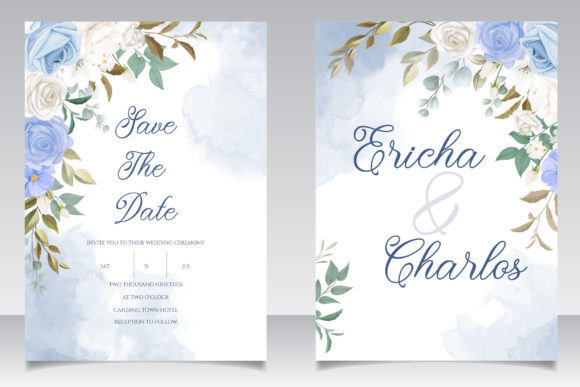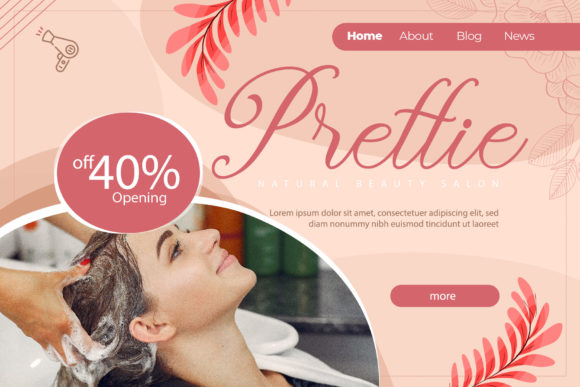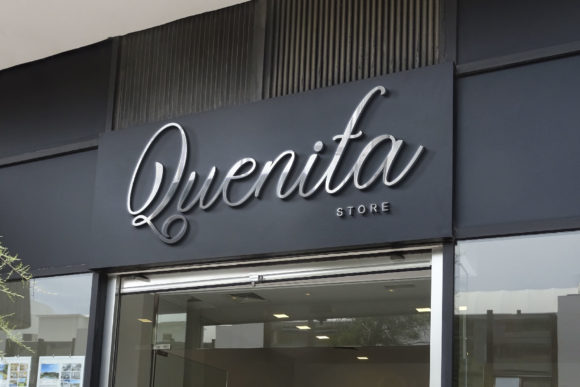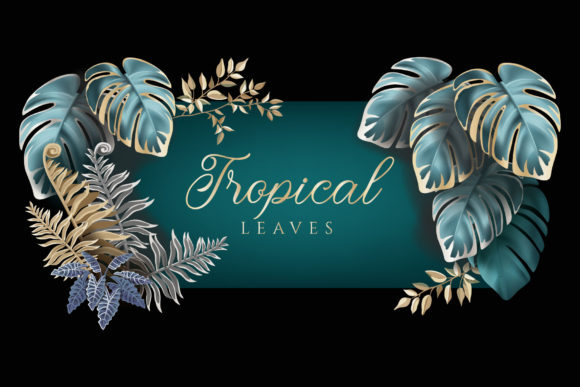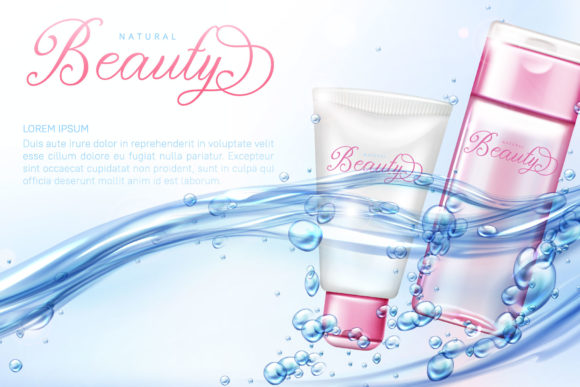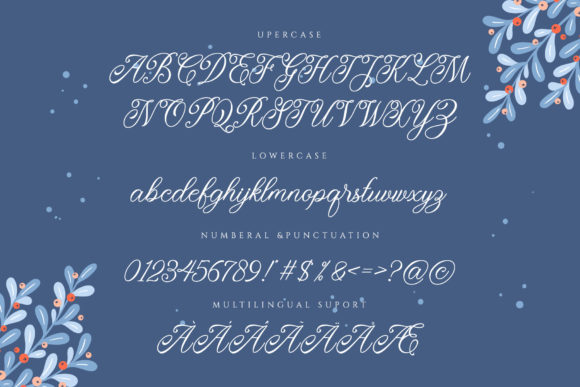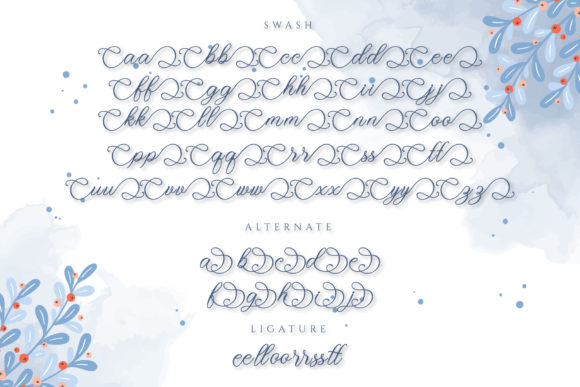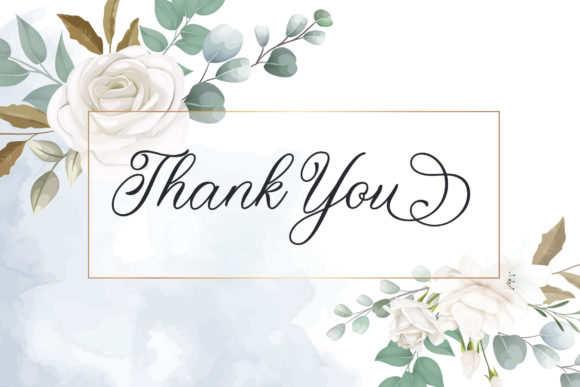
Monitha Font
About Monitha Font
Monitha is a lovely handwritten font, defined by a beautiful flow. It looks wonderful on wedding invitations, thank you cards, quotes, greeting cards, logos, business cards and every other design which needs a romantic touch.